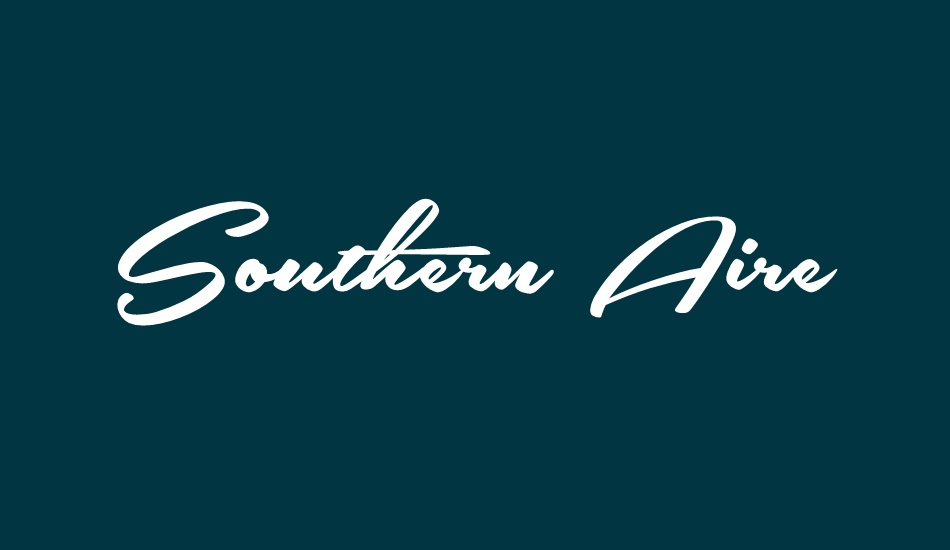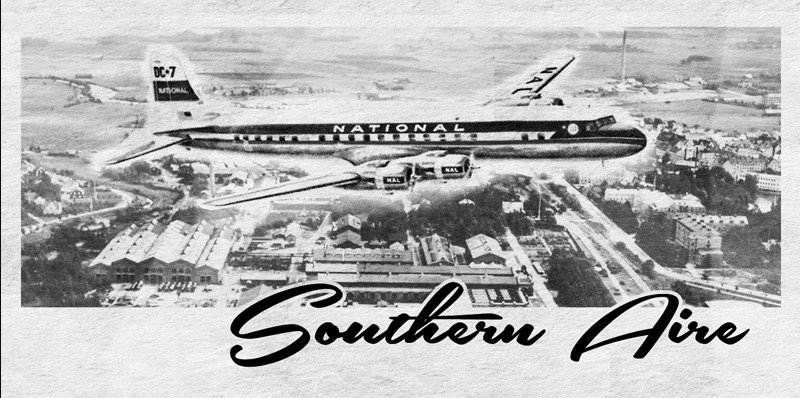
Southern Aire Font
Southern Aire Font is known as the best text generator. It is a script typeface. Moreover, this is indexed in google fonts. Now, the tremendous’s manufacturers took the all right reserved for this business enterprise corporation.
Its headquarter positioned downtown, north. On the same time. This is also known as the bebas neue font. Due to the truth, pretty some portions of designers from the first-class fashion of the fields whiling to artwork collectively with that frontage font and create a few new designs for advertising and designing.